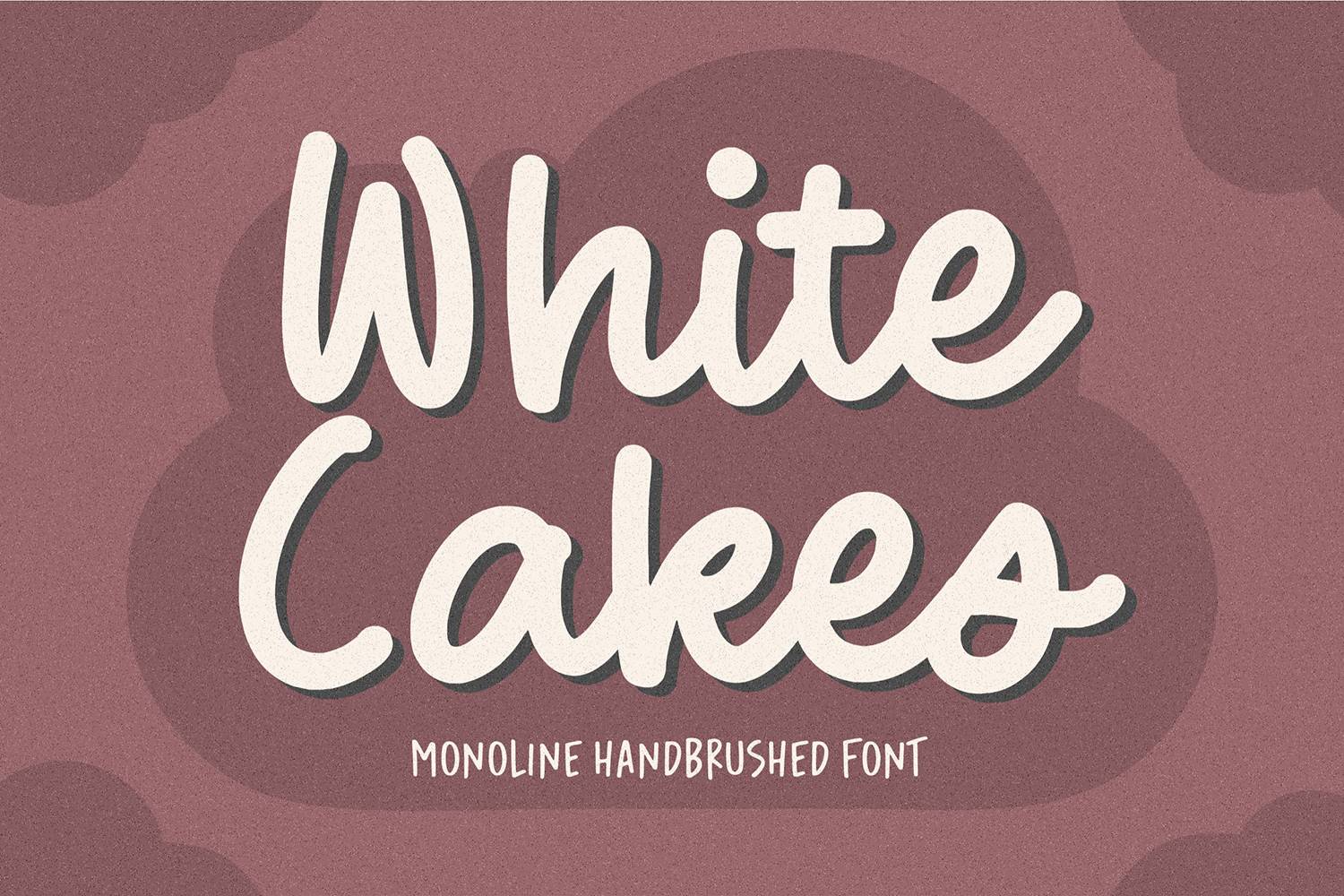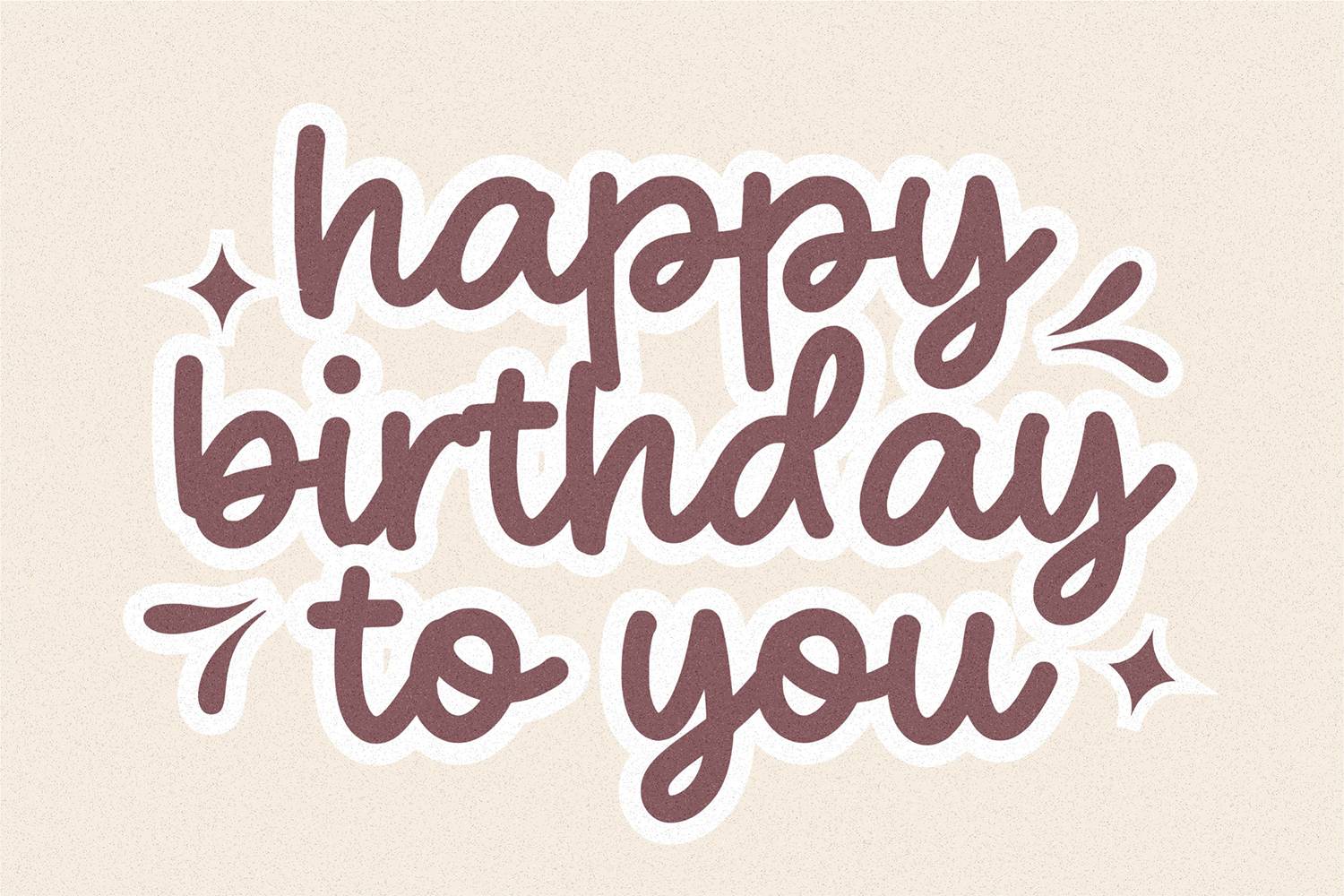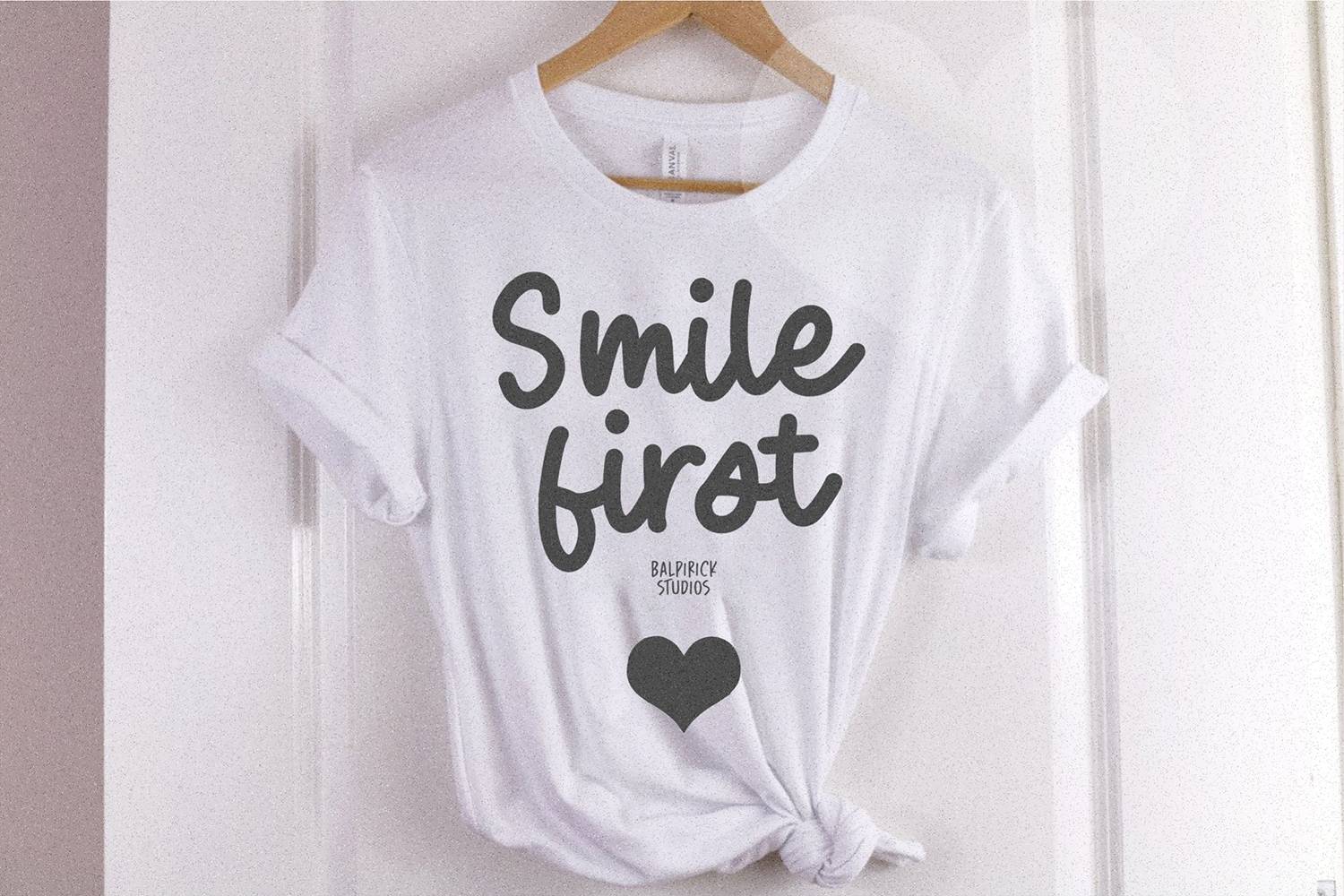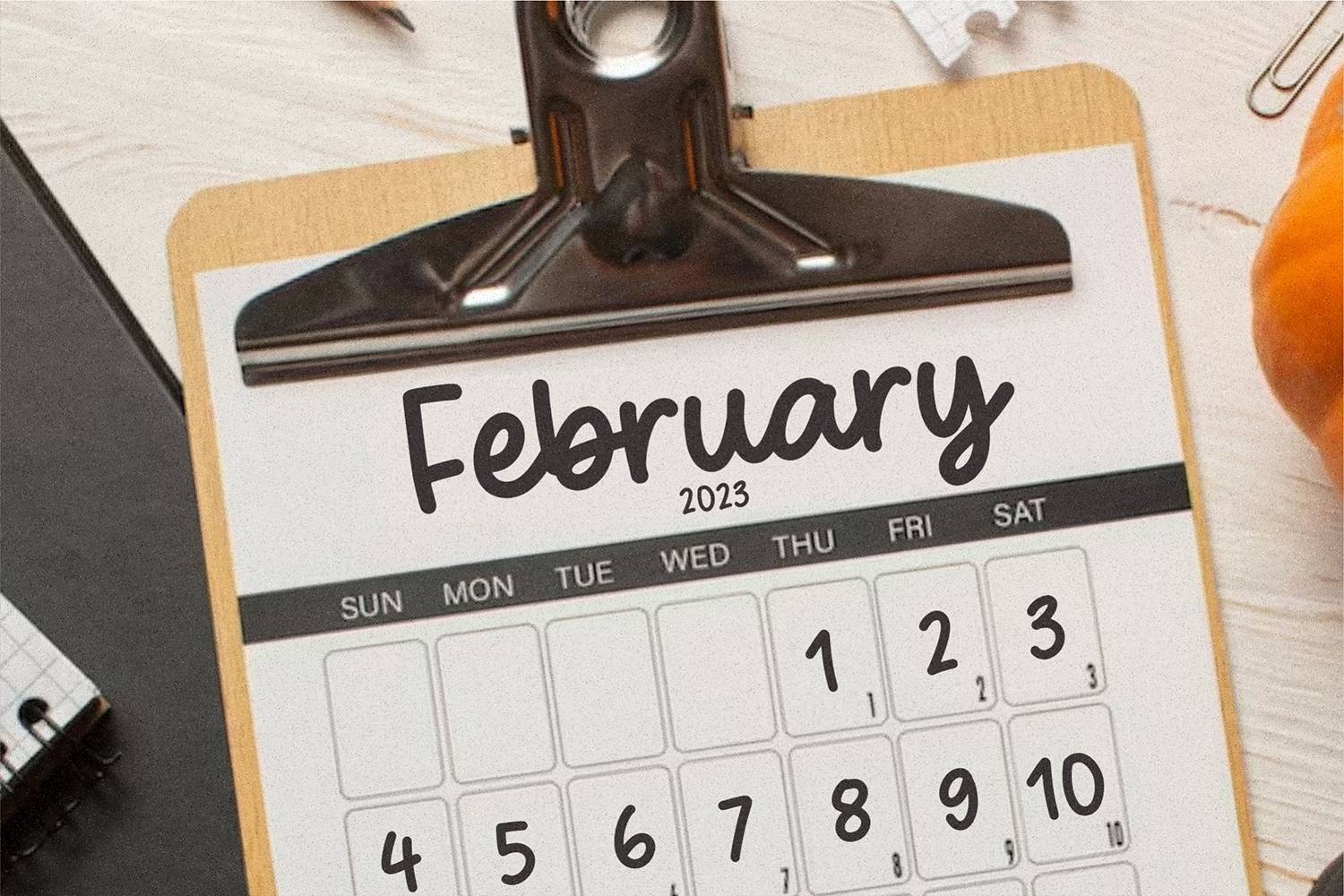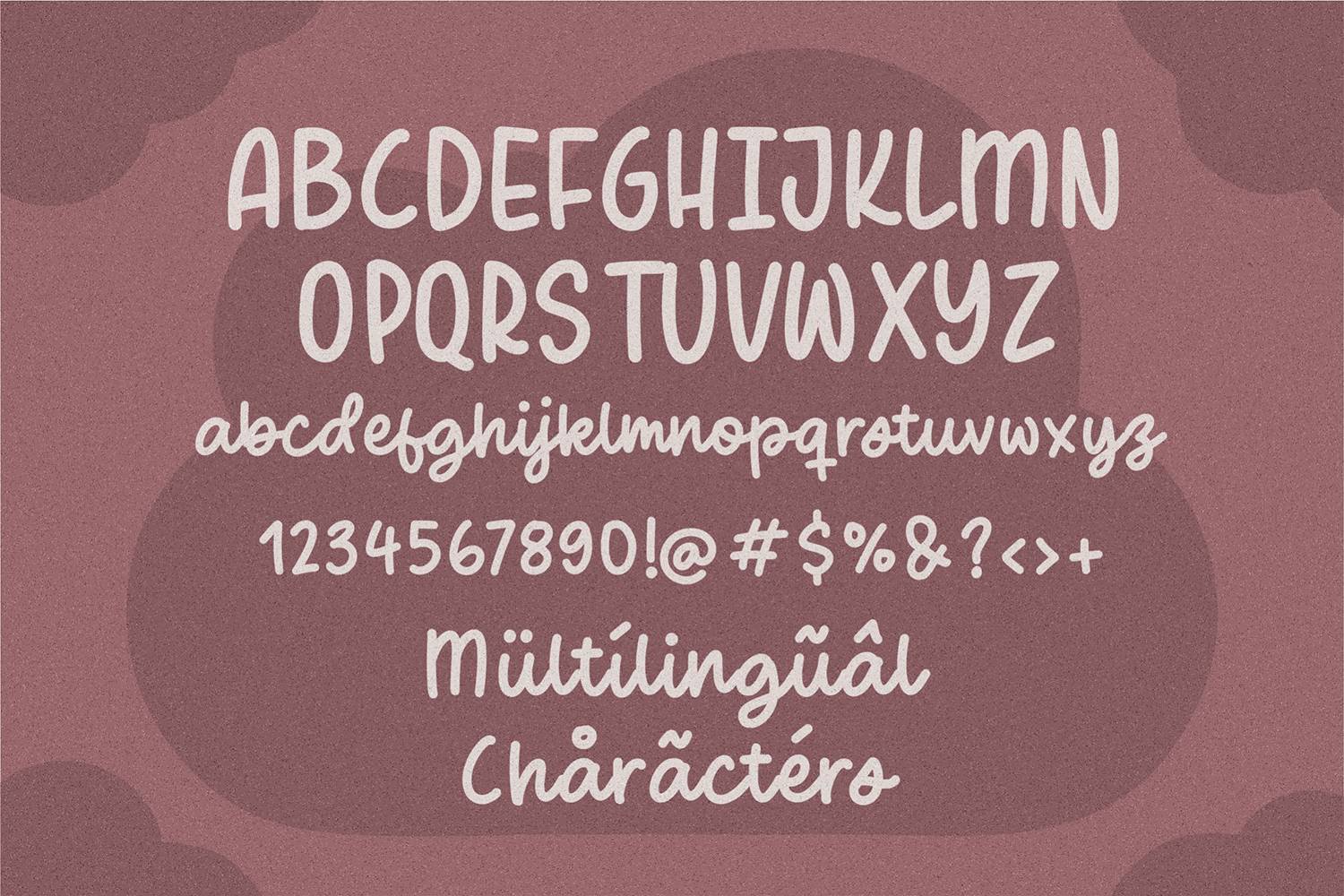
White Cakes is a playful and casual handwritten font with a warm, friendly feel. Its rounded, moderately thick strokes and slightly irregular forms create an inviting, approachable style ideal for informal branding, children’s materials, or creative projects seeking a personal touch. This font works well in headlines, logos, and packaging where a charming, handcrafted vibe is desired.
White Cakes Font
About White Cakes Font
| Font family | White Cakes Font |